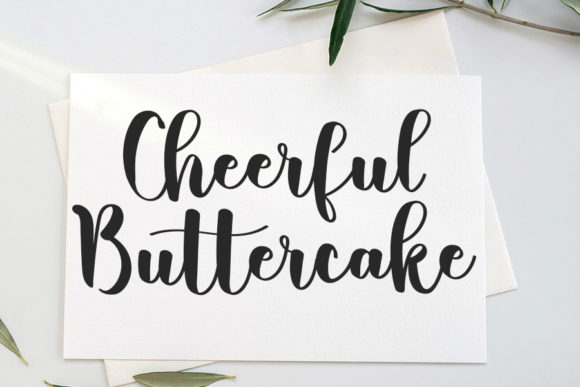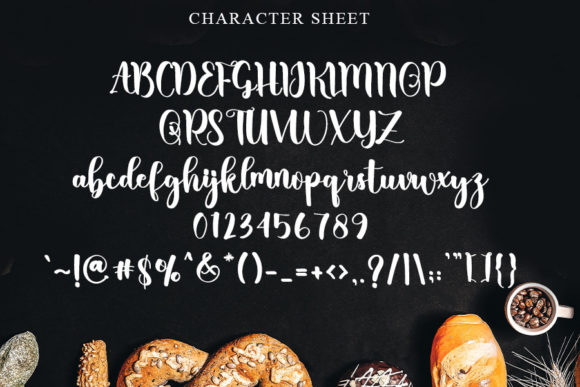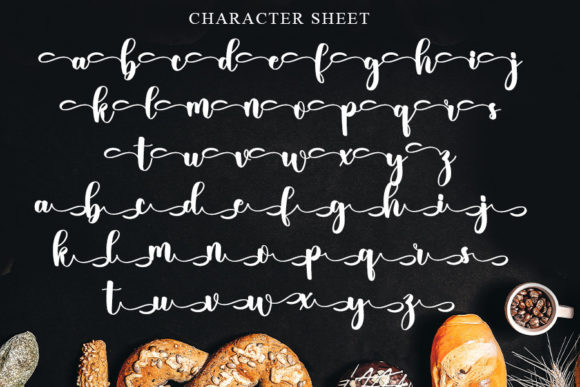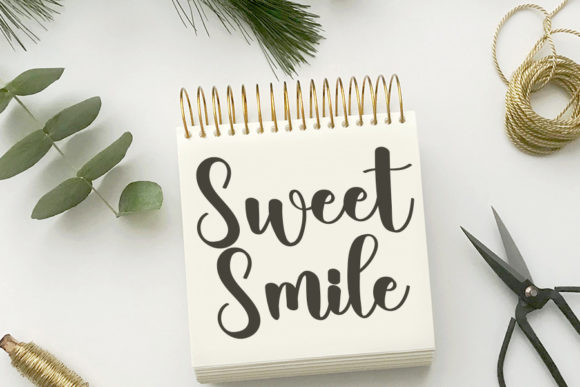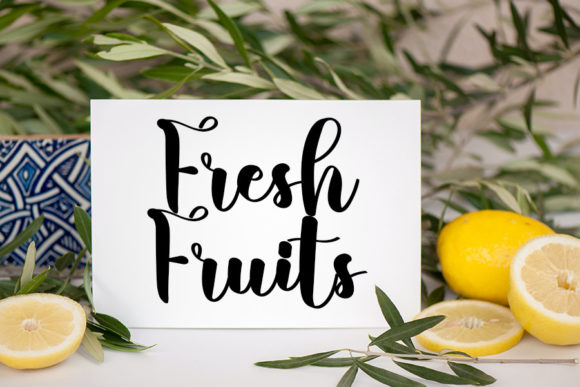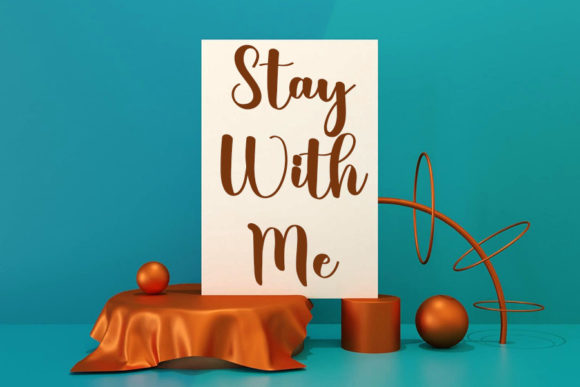
Have you ever been working on a design project and suddenly, the perfect font just pops into your head? Maybe it’s a beautiful script font that adds a touch of elegance to your logo or invitation. For me, that moment came when I discovered the Buttercake Font. This stunning script font is a game-changer for designers looking to add a touch of sophistication to their work.
The Buttercake Font is a versatile and refined script font that can be used for a wide range of applications, from logos and branding to wedding designs and social media posts. With its classy, elegant, and modern look, it’s no wonder why designers are falling in love with this beautiful font. Plus, its PUA encoding makes it easy to access all the amazing glyphs and ligatures, giving you endless creative possibilities.
Buttercake Font Key Features
- Unique Characteristics: The Buttercake Font is known for its playful, cursive style with rounded edges and a soft, buttery texture, making it ideal for creative and whimsical designs
Buttercake Font Review
Overall, I think the Buttercake Font is a sweet addition to any design project. It has a playful and whimsical feel to it, which can be a great asset for creative and artistic projects. ✨
- Cute and playful feel
- Perfect for creative and artistic projects
- Works well for titles and headings
However, there are a few limitations to consider. ⚠️
- May not be suitable for formal or professional projects
- Lack of versatility in font sizes and styles
- May not be compatible with all operating systems or devices
Overall, I would give the Buttercake Font 3.5 out of 5 stars. It’s a fun and playful font that can add a lot of character to a design, but it may not be the best choice for every project. With a little creativity and experimentation, it can be a great addition to any design arsenal.
Tips for Getting the Most Out of the Buttercake Font
For optimal results, use the Buttercake Font in conjunction with a distressed or vintage design aesthetic. Pair it with bold, contrasting colors to create a striking visual effect. Experiment with different font sizes and combinations to create a unique look.
The Buttercake Font is ideal for creating vintage-inspired designs, such as invitations, posters, and social media graphics. It’s also suitable for use in wedding invitations, menus, and other event-related materials.
Alternatives to Buttercake Font
Great Vibes Font is a modern, elegant script font that is perfect for creating a sophisticated and luxurious feel. It is ideal for use in wedding invitations, branding, and advertising materials. Great Vibes Font has a more refined and polished look compared to Buttercake Font, which has a more playful and whimsical feel.
Carolyna Pro Font is a beautiful, high-end script font that is designed for use in luxury branding, packaging, and advertising materials. It has a more refined and sophisticated look compared to Buttercake Font, which makes it perfect for high-end clients and projects. Carolyna Pro Font is ideal for use in wedding invitations, luxury goods, and premium branding materials.
3. Ostrich Sans Font
Ostrich Sans Font is a modern, sans-serif font that is perfect for creating a clean and minimalist look. It is ideal for use in tech startups, fashion brands, and modern advertising materials. Ostrich Sans Font has a more modern and sleek look compared to Buttercake Font, which has a more playful and vintage feel.
Alex Brush Font is a elegant, handwritten font that is perfect for creating a personal and intimate feel. It is ideal for use in wedding invitations, branding, and advertising materials that require a touch of personality. Alex Brush Font has a more elegant and refined look compared to Buttercake Font, which has a more playful and whimsical feel.